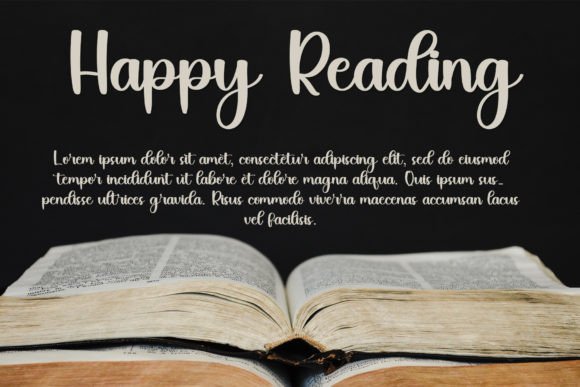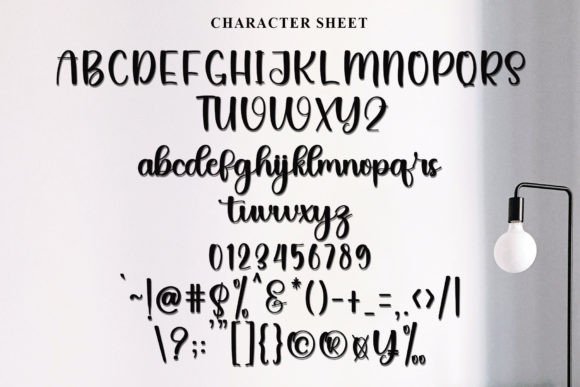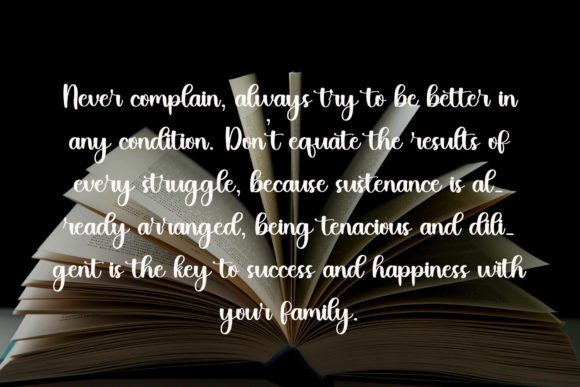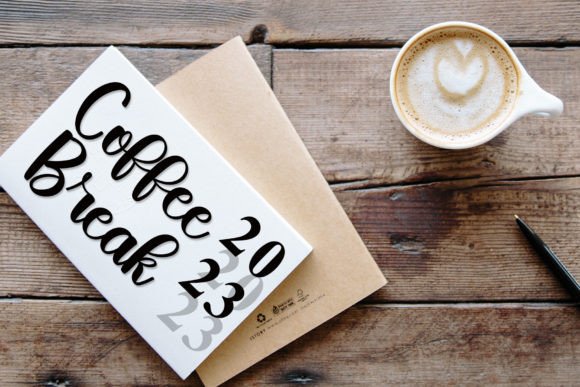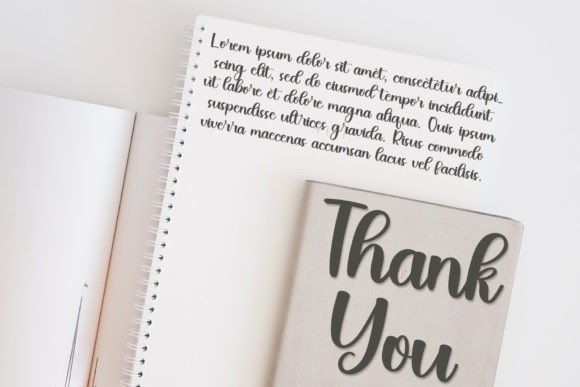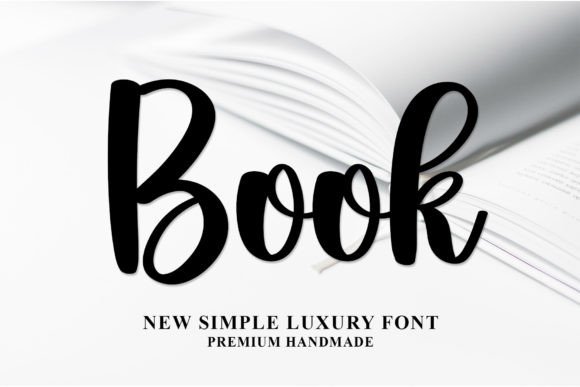
The Quest for the Perfect Font: Discovering Book Font
I’ll never forget the design project that led me to Book Font. I was working on a branding project for a luxury client, and I was determined to find the perfect font to capture their elegant and sophisticated vibe. Hours turned into days, and days turned into weeks, as I scrolled through font after font, but nothing seemed quite right. That was until I stumbled upon Book Font, a stylish handwritten font that instantly resonated with me.
First Impressions: A Timeless Classic
Book Font is a beautiful, contemporary handwritten font inspired by timeless classic calligraphy. Its impeccable form and balanced design make it perfect for enhancing the beauty of your projects. The font’s creator aimed to craft a typeface that would bring a touch of elegance and sophistication to any design. With its varied and nuanced strokes, Book Font is sure to impress.
So, what do I love about Book Font? Here are a few things that stand out:
- ✨ Beautifully crafted: The attention to detail in Book Font is exceptional. Each letter is carefully designed to create a cohesive and harmonious look.
- ✅ Highly versatile: Book Font can be used for a wide range of projects, from branding and advertising to packaging and editorial design.
- 💫 Easy to read: Despite its elegant and cursive nature, Book Font remains highly legible, even at smaller font sizes.
Of course, no font is perfect, and Book Font has a few minor quirks:
- 🤔 Limited use of uppercase letters: While the uppercase letters are beautifully designed, they can be a bit inconsistent in terms of style and size.
- ⚠️ Occasional kerning issues: As with any font, there may be some kerning issues, particularly when using certain letter combinations.
The Designer Inspiration Behind Book Font
While the true story behind Book Font’s creation may be unknown, it’s easy to imagine a designer inspired by the world of classic calligraphy. Perhaps they spent hours poring over vintage typography books, searching for the perfect blend of elegance and modernity. Whatever the inspiration, Book Font is a beautiful result that brings a touch of sophistication to any design.
| Font Name | Book Font |
| What type of projects is Book Font best suited for? | Book Font is versatile and can be used for a wide range of projects, including branding, advertising, packaging, and editorial design. |
| Is Book Font suitable for body text? | While Book Font is beautiful, it’s best used for headlines and titles. For body text, a clearer font may be more suitable. |
| Is Book Font available in different weights and styles? | Book Font may come in different weights and styles, but this depends on the specific version and vendor. |